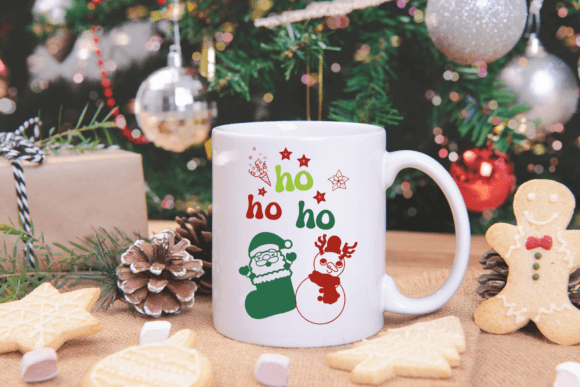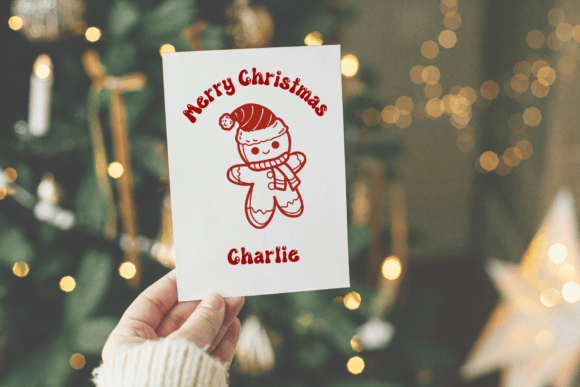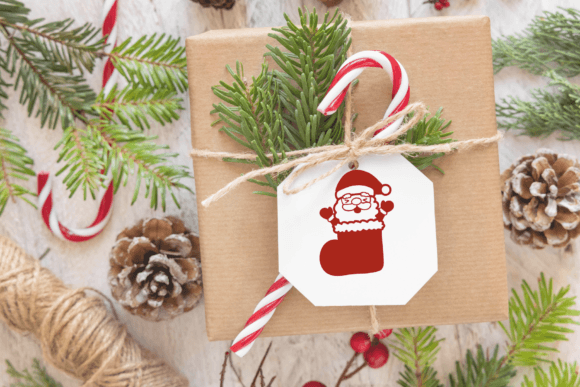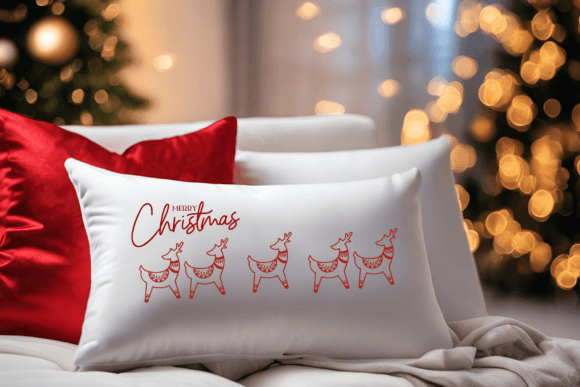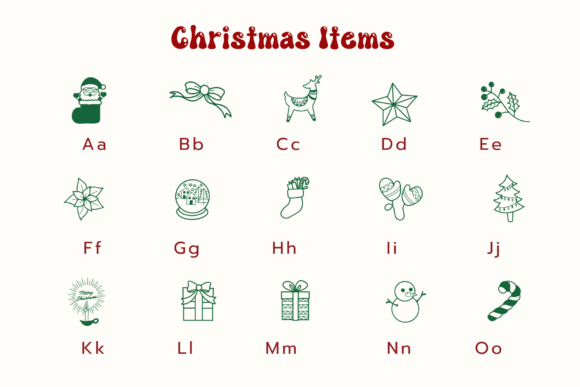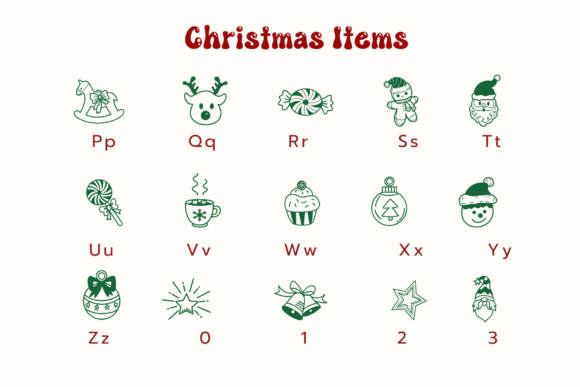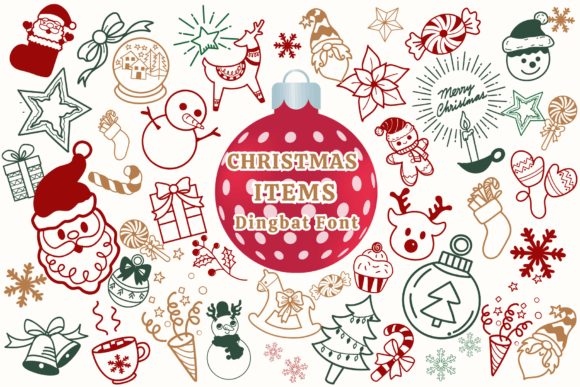
Deck the Halls with Christmas Items Font: A Festive Collection for Designers
It’s the most wonderful time of the year! As designers and crafters, we’re always on the lookout for fresh and exciting elements to add to our holiday-themed projects. That’s where Christmas Items Font comes in – a delightful collection of festive dingbats that’s sure to bring a smile to your face. In this article, we’ll dive into the world of Christmas Items Font and explore how you can use it to spread joy and cheer in your designs.
What is Christmas Items Font?
Christmas Items Font, also known as Christmas Items Dingbats, is a charming collection of festive symbols and icons designed to add a touch of holiday magic to your projects. This fun and quirky font is perfect for designers, crafters, and anyone looking to create eye-catching Christmas-themed designs. With its playful and cheerful vibe, Christmas Items Font is sure to get you in the mood for the holiday season.
Features of Christmas Items Font
So, what makes Christmas Items Font so special? Here are just a few of its standout features:
- Festive collection: Christmas Items Font boasts a wide range of festive symbols, including Christmas ornaments, trees, stockings, and more.
- Cute and happy: The font’s playful and cheerful design is sure to bring a smile to your face and add a touch of whimsy to your projects.
- Perfect for holiday designs: Whether you’re creating Christmas cards, gift tags, or social media graphics, Christmas Items Font is the perfect choice.
Using Christmas Items Font in Your Designs
Now that we’ve covered the basics, let’s dive into some creative ways to use Christmas Items Font in your designs:
Christmas Ornament Dingbats
One of the standout features of Christmas Items Font is its collection of Christmas ornament dingbats. These adorable symbols can be used to add a touch of festive flair to your designs. Try using them as:
- Bullet points: Replace traditional bullet points with Christmas ornament dingbats to add a playful touch to your lists.
- Decorative elements: Use Christmas ornament dingbats as decorative elements in your designs, such as in headers, footers, or sidebars.
- Icons: Incorporate Christmas ornament dingbats as icons in your designs, such as in social media graphics or blog posts.
Holiday-Themed Projects
Christmas Items Font is perfect for a wide range of holiday-themed projects, including:
- Christmas cards: Add a touch of festive flair to your Christmas cards with Christmas Items Font.
- Gift tags: Use Christmas Items Font to create adorable gift tags that are sure to impress.
- Social media graphics: Add some holiday cheer to your social media graphics with Christmas Items Font.
Here are a few tips and tricks to help you get the most out of Christmas Items Font:
- Experiment with colors: Try pairing Christmas Items Font with different colors to create unique and eye-catching designs.
- Mix and match: Combine Christmas Items Font with other festive fonts and elements to create a truly unique look.
- Use it sparingly: Don’t be afraid to use Christmas Items Font sparingly to add a touch of festive flair to your designs.
Christmas Items Font is a fun and festive collection of dingbats that’s perfect for designers and crafters looking to add a touch of holiday cheer to their projects. With its cute and happy design, Christmas Items Font is sure to bring a smile to your face and inspire your creativity. So why not give it a try and spread some holiday joy with Christmas Items Font?
Whether you’re a seasoned designer or a crafter looking for a fun and creative way to add some festive flair to your projects, Christmas Items Font is the perfect choice. So go ahead, get creative, and let your imagination shine this holiday season!